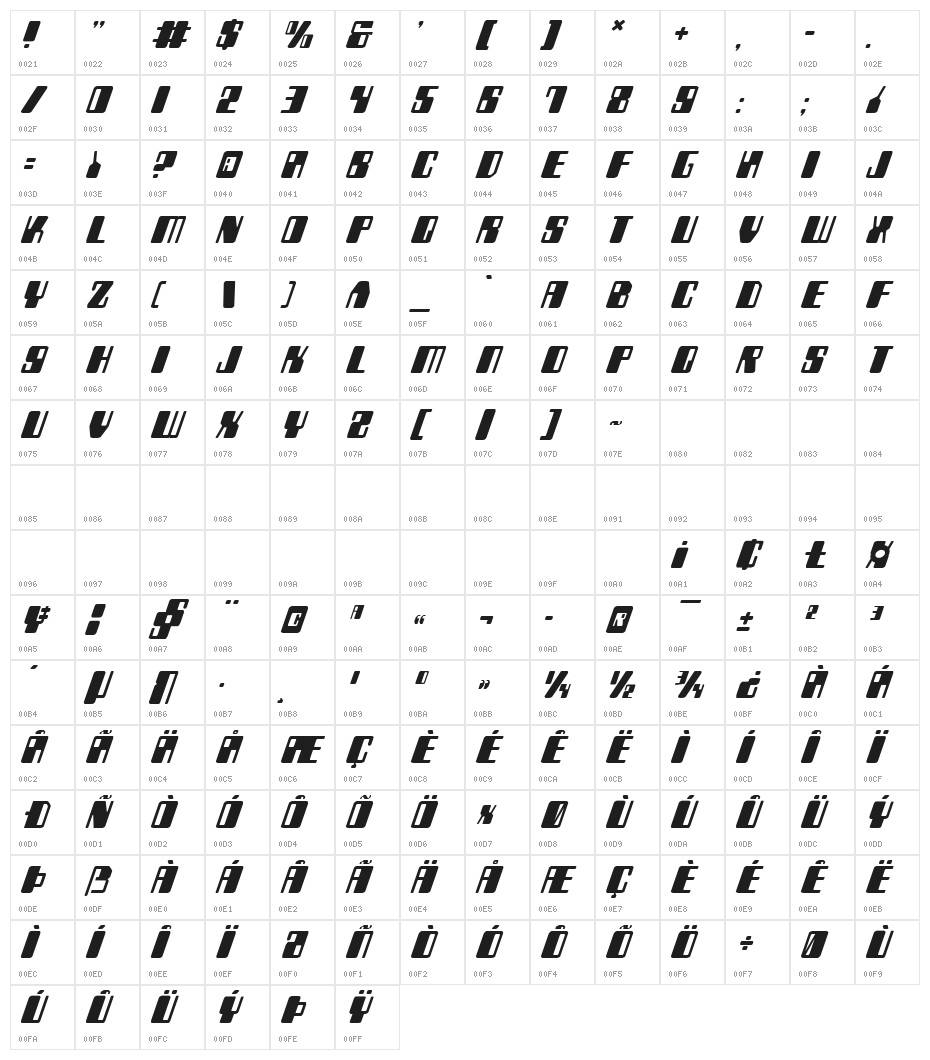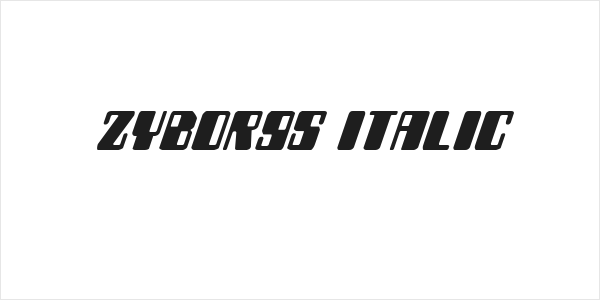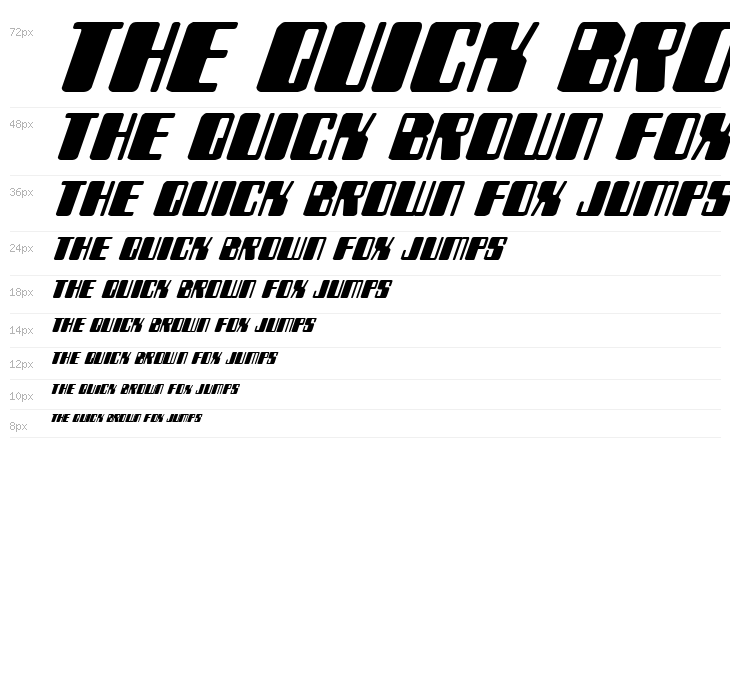
Zyborgs Italic Font
Zyborgs Italic Description
This font features a bold and dynamic style with a futuristic and angular design. The characters are italicized, giving them a sense of motion and speed. The strokes are thick and consistent, providing a strong visual impact. The design is highly geometric, with sharp edges and a slightly condensed form. The uppercase and lowercase letters maintain a uniform appearance, while the numbers and special characters are crafted to match the overall aesthetic. This font is well-suited for projects that require a modern and edgy look.
| Proposed Projects | Ideal for sci-fi themed designs, video game titles, technology branding, and dynamic posters. |